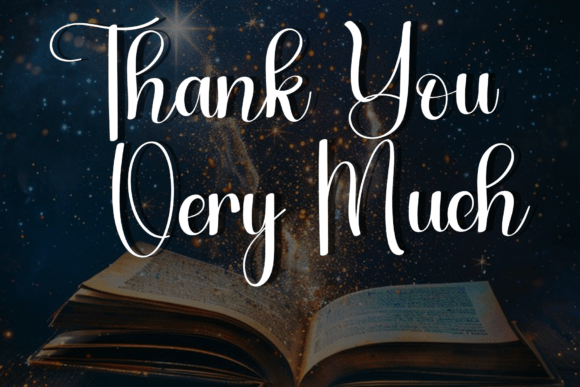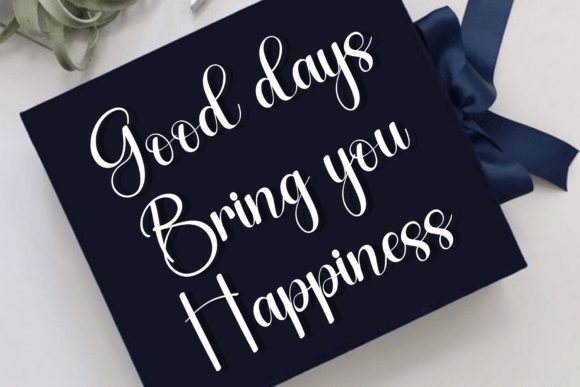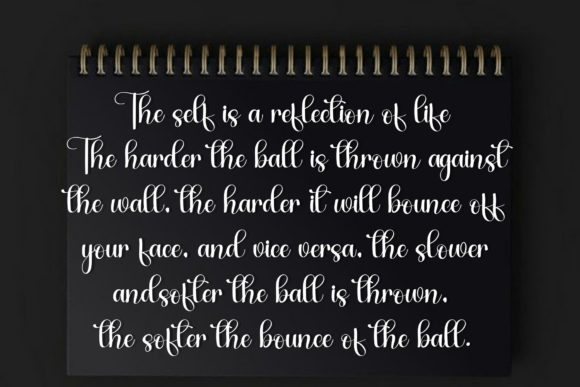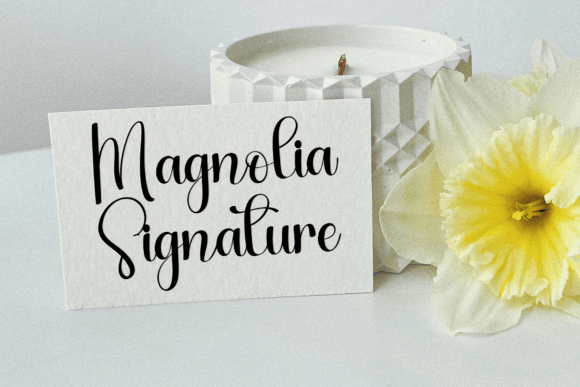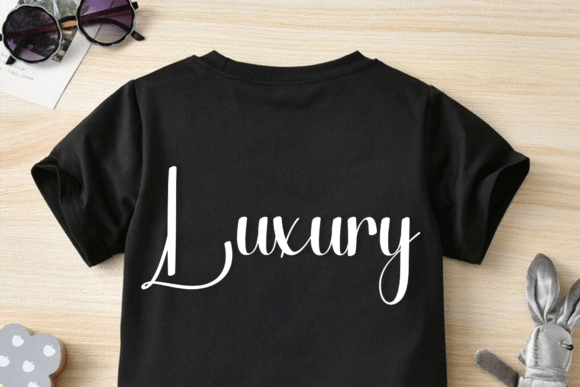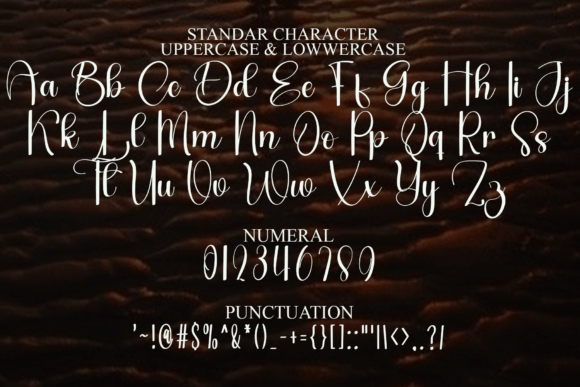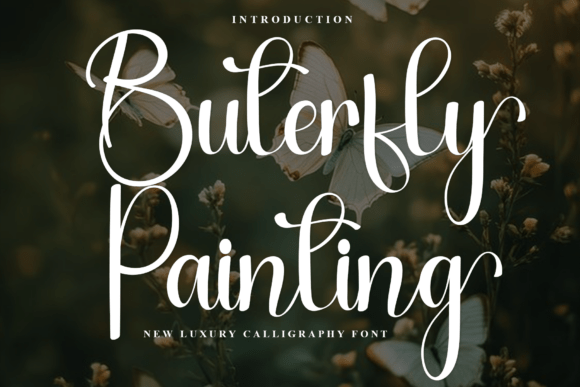
Introducing Buterfly Painting Font: The Perfect Blend of Creativity and Friendliness
Are you a designer, crafter, or DIY enthusiast looking for a font that can add a personal touch to your projects? Look no further than Buterfly Painting Font, a casual and creative font that exudes warmth and friendliness. This charming font is perfect for a wide range of applications, from personal projects and invitations to social media graphics and more.
The Unique Characteristics of Buterfly Painting Font
Buterfly Painting Font is characterized by its round, playful strokes that create a relaxed and approachable feel. The font’s hand-drawn aesthetic adds a fun and unique touch to any design, making it perfect for those who want to add a personal touch to their work. Whether you’re creating a birthday invitation, a social media post, or a craft project, Buterfly Painting Font is sure to make your design stand out.
What Makes Buterfly Painting Font So Versatile?
Buterfly Painting Font is a dream come true for designers and crafters who want to add a personal touch to their work. The font’s casual and creative vibe makes it perfect for a wide range of projects, from:
• Personal projects, such as photo albums and scrapbooking
• Invitations, including birthday, wedding, and graduation invites
• Social media graphics, including Facebook posts, Instagram stories, and Twitter headers
• Craft projects, such as handmade cards, gift tags, and DIY decor
Tips and Tricks for Getting the Most Out of Buterfly Painting Font
Here are a few tips and tricks for getting the most out of Buterfly Painting Font:
• Experiment with different font sizes and colors to create a unique look
• Combine Buterfly Painting Font with other fonts to create a contrasting effect
• Use the font to add a personal touch to your designs, such as in headings, titles, and captions
• Don’t be afraid to get creative and try new things – Buterfly Painting Font is a versatile font that can be used in a wide range of applications
Font Name Buterfly Painting Font
Author K_IN Studio
In conclusion, Buterfly Painting Font is a unique and versatile font that is perfect for designers, crafters, and DIY enthusiasts. Its casual and creative vibe makes it perfect for a wide range of projects, from personal projects and invitations to social media graphics and craft projects. With its standard PUA Encoded glyphs and compatibility with a wide range of application engines, Buterfly Painting Font is easy to use and can be incorporated into your workflow with ease.